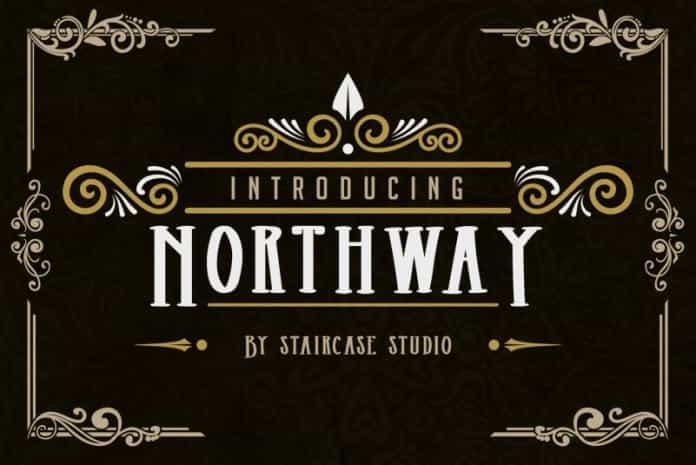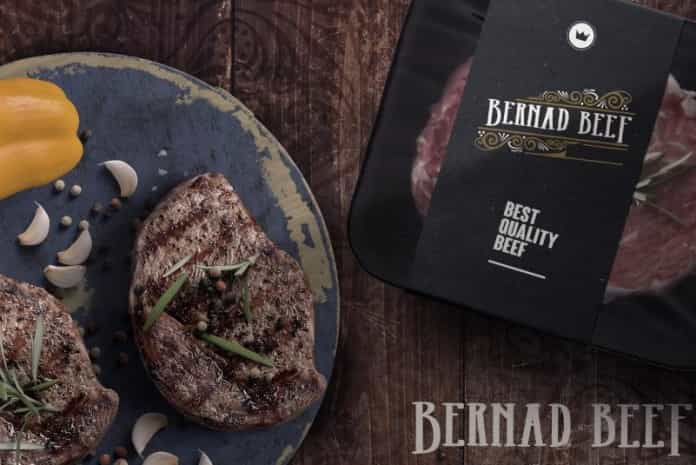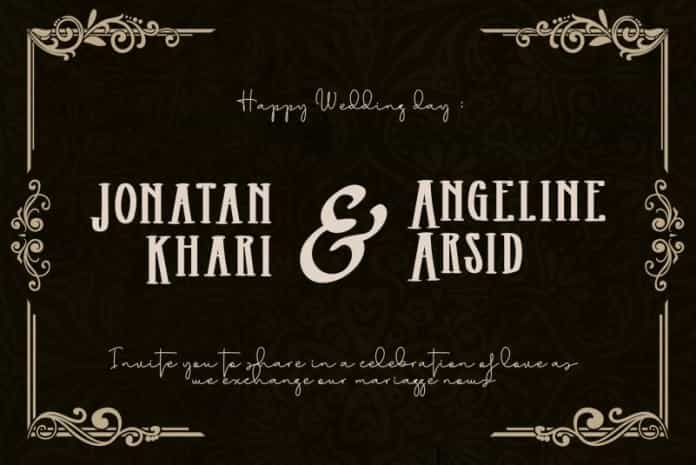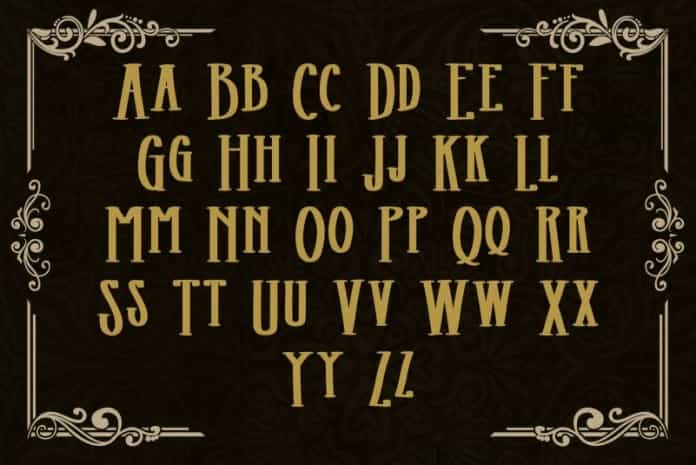
Discover Northway Serif Font, part of the Serif Retro Vintage collection—a versatile and unique font perfect for adding a personal touch to your projects. Download it for free and enjoy crafting designs with style, from invitations to social media posts. This font is available exclusively for personal use, giving you the freedom to create without limits. Unlock your creativity with Northway Serif Font today!
Northway Font with fresh and trendy designs. A set of characters and numbers that are perfect for your projects as well as great for Logotype, Branding Design, Logo Design, Digital Lettering Arts, T-Shirt/Apparel design , Poster design , Magazine designs among others.